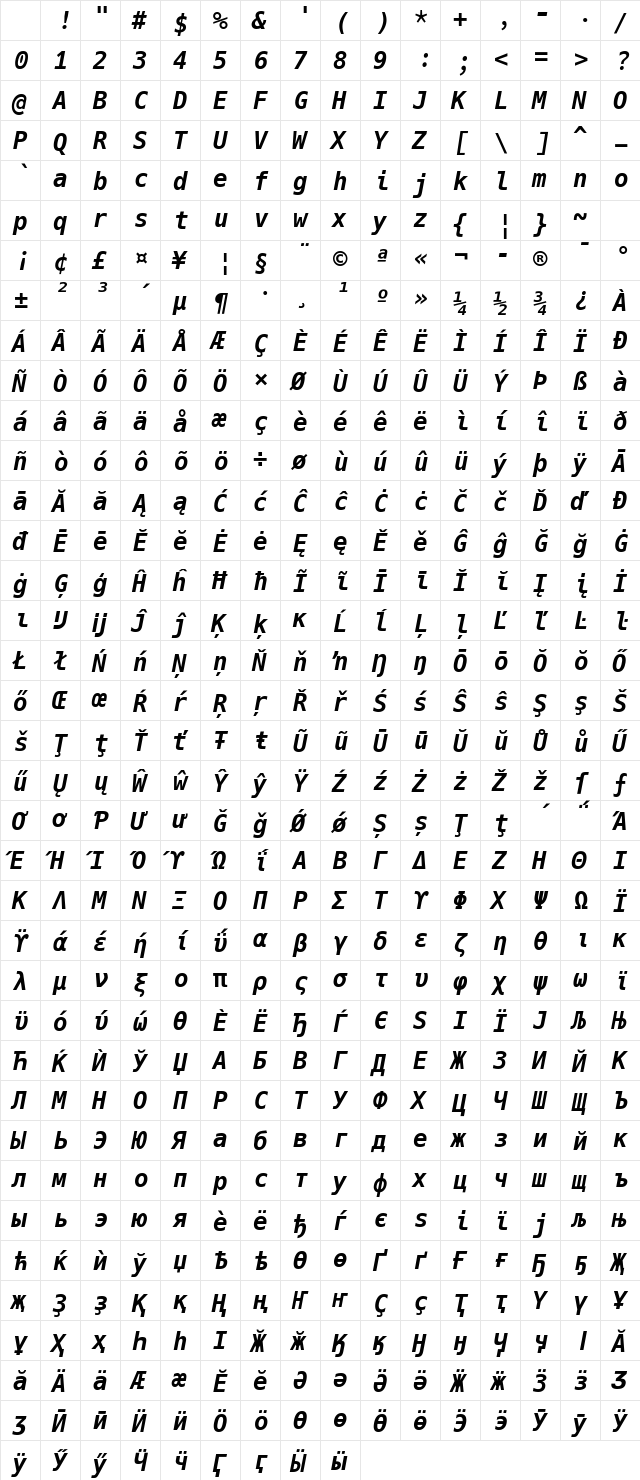
Complete Hack Nerd Font Bold Italic glyph index. Displaying only characters natively supported by Hack Nerd Font Bold Italic font.
Hack Nerd Font is a composed and adaptable typeface that performs quietly and consistently across a wide range of design contexts. The slanted form adds forward momentum and visual energy. Its bold stroke weight gives it real presence on the page.
Pro Tip: Use Hack Nerd Font for emphasis, pull quotes, and subheadings where its slanted energy can add rhythm to the layout.